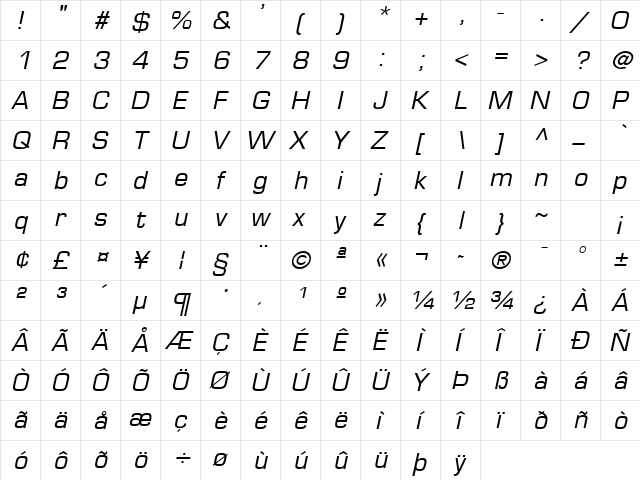
Eurasia Wide Italic
Design Context for Eurasia Wide Typeface
Eurasia Wide takes a measured approach to typography — its balanced proportions and neutral character make it a reliable workhorse for both digital and print work. The dynamic lean of this cut emphasises speed and emphasis in any layout.
Pro Tip: Use Eurasia Wide for emphasis, pull quotes, and subheadings where its slanted energy can add rhythm to the layout.